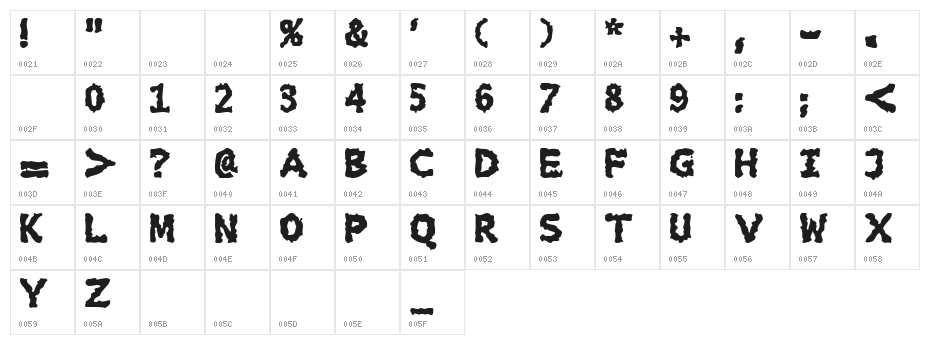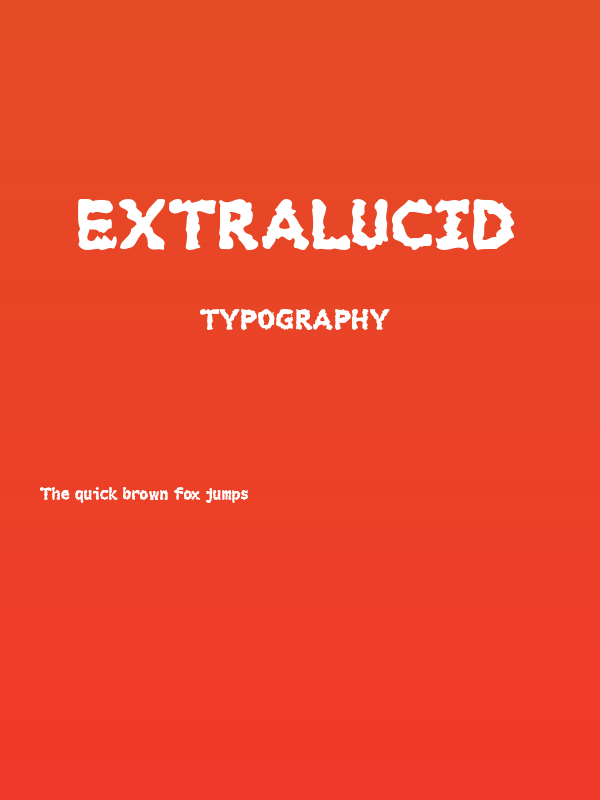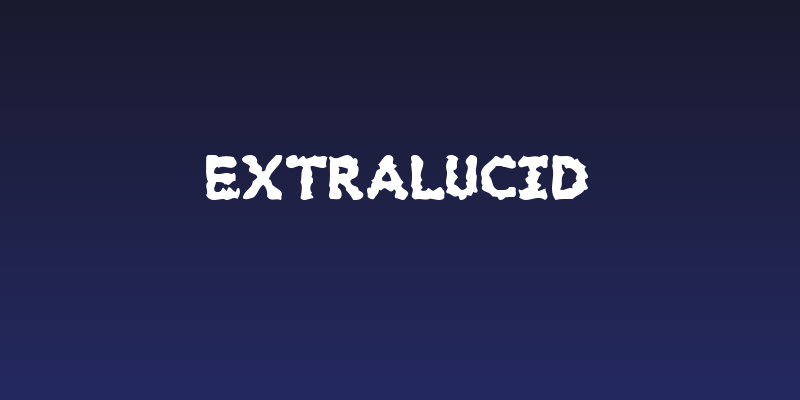
Extralucid Font
Extralucid Description
This font features a bold and rugged design with irregular, jagged edges that give it a distressed and organic appearance. The characters are thick and substantial, creating a strong visual impact. Each letter and number is uniquely shaped, adding a sense of individuality and creativity to the text. The font's style is reminiscent of hand-carved or eroded surfaces, making it ideal for projects that require a raw and edgy aesthetic. Its distinctive look can capture attention and convey a sense of boldness and unconventionality.
| Proposed Projects | Ideal for album covers, posters, branding for edgy products, or any design needing a bold, unconventional look. |